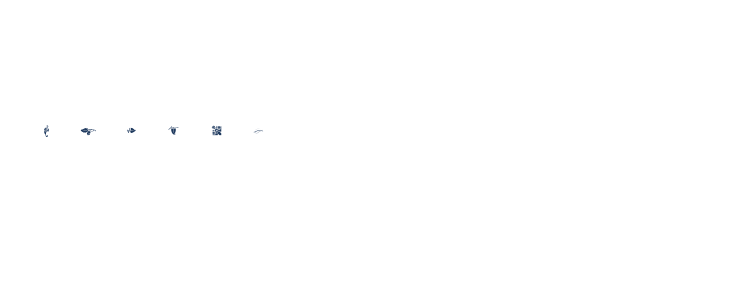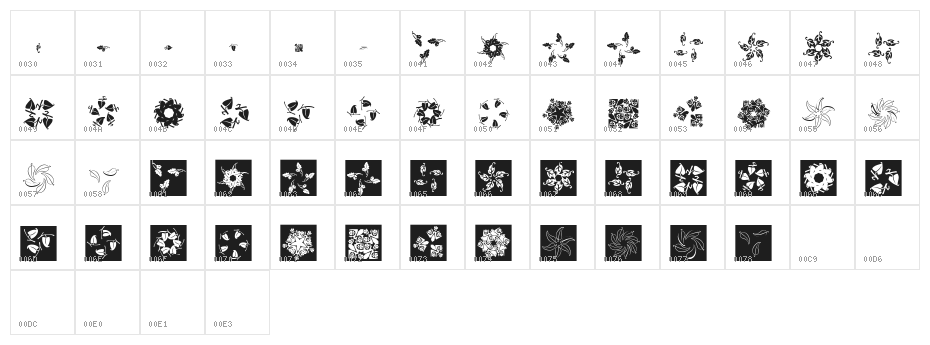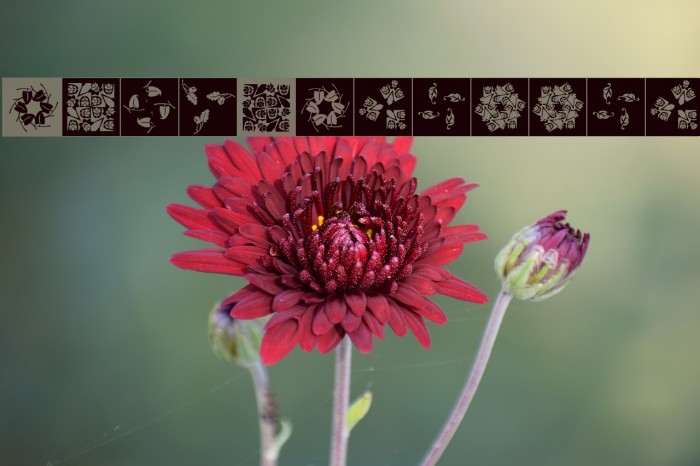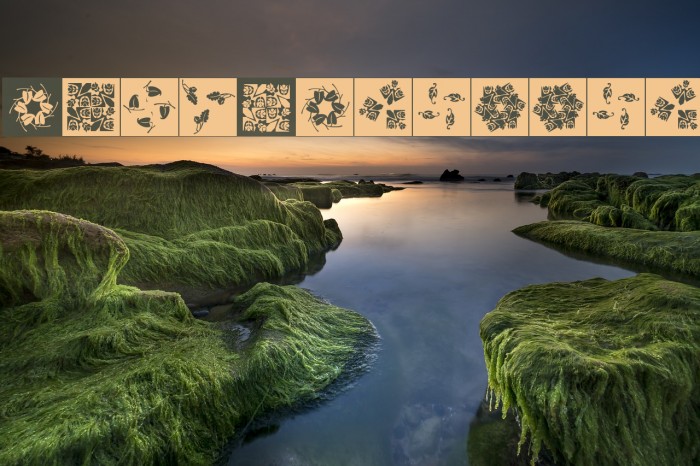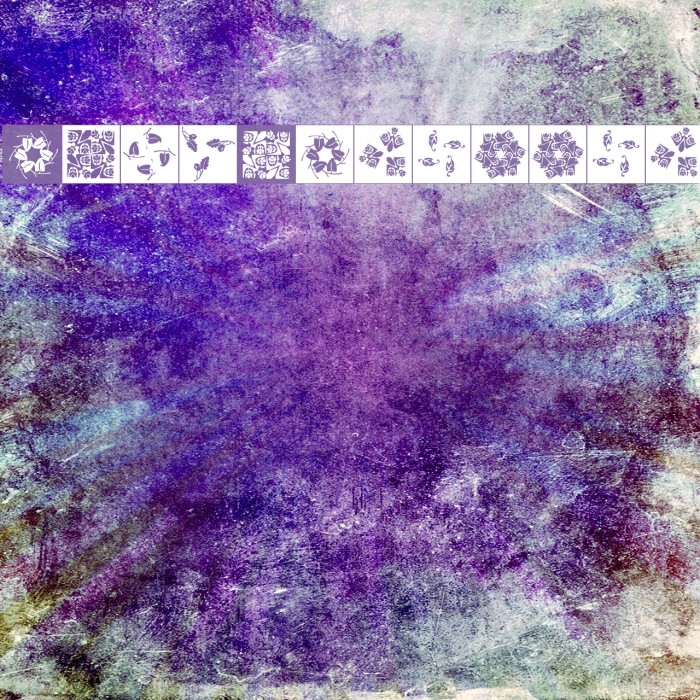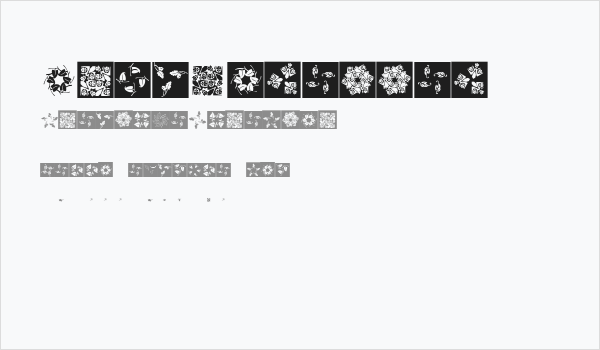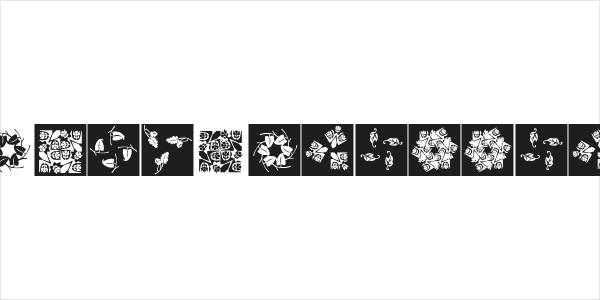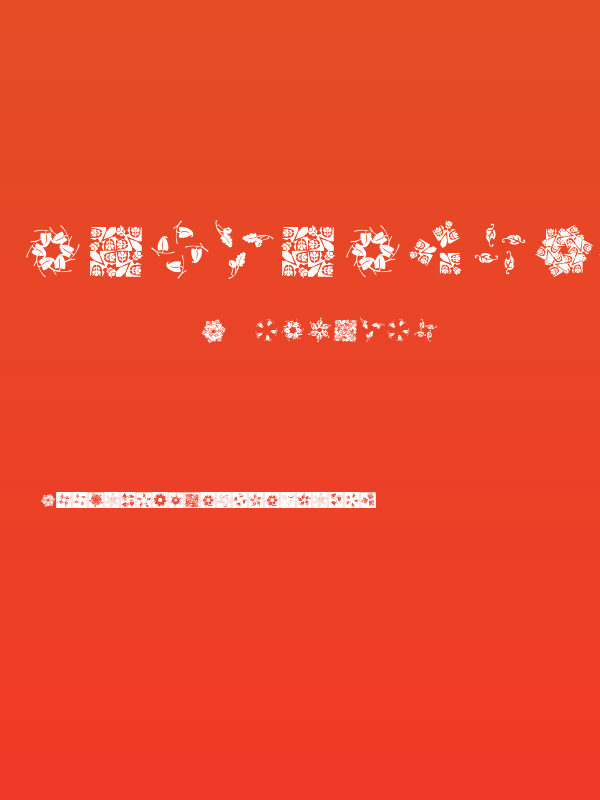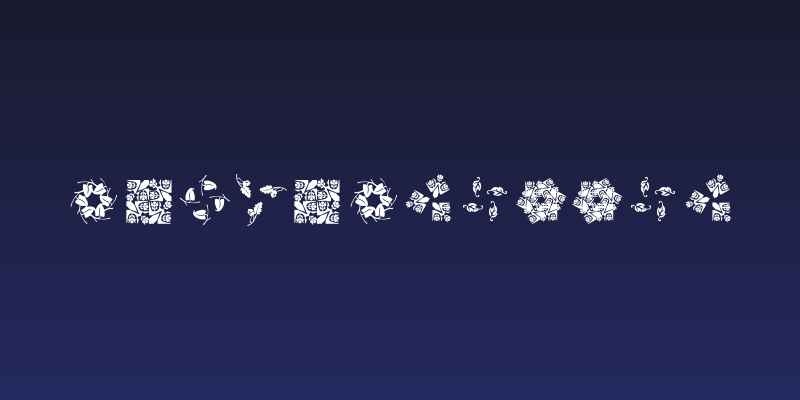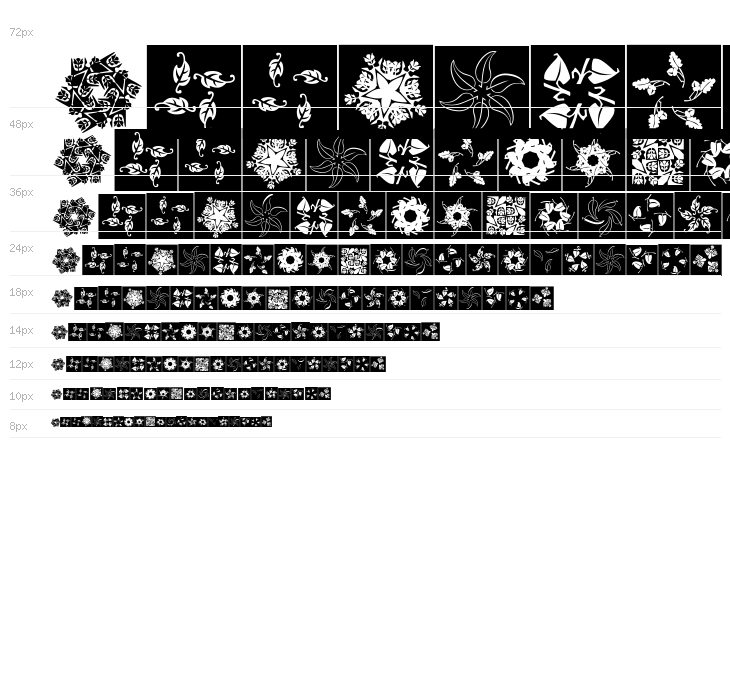
OrnaRosettes Font
OrnaRosettes Description
A decorative font composed entirely of intricate floral and ornamental motifs, featuring symmetrical and organic shapes with high detail. Each glyph is a unique ornamental design rather than a traditional letterform, making it suitable for embellishments and borders.
| Overall Style | Decorative, Ornamental, Vintage |
| Use Case | Decorative elements, Borders, Frames, Accents |
| Proposed Projects | Invitations, certificates, decorative borders, scrapbooking, branding for luxury or vintage products. |